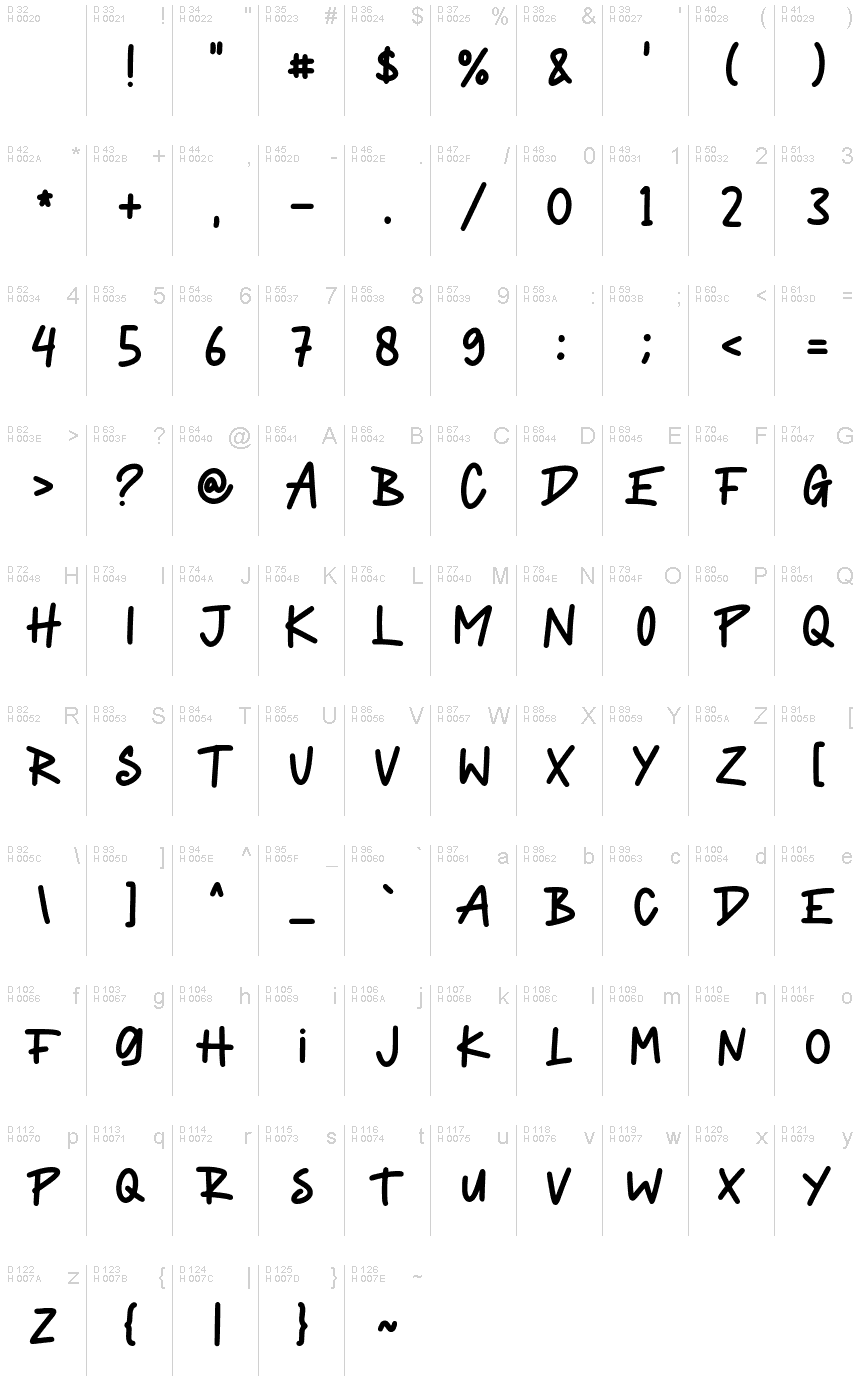
Crisp Cracks
Introducing Crisp Cracks font, a light-weight handwritten typeface designed by Maulana Creative. This elegant yet playful font is perfect for a wide variety of projects, from invitations and cards to logo designs. Crisp Cracks offers a unique and expressive look that is sure to make your project stand out. Its versatile style makes it suitable for everything from creative posters to books covers and beyond. Let your imagination run wild with this whimsical font!